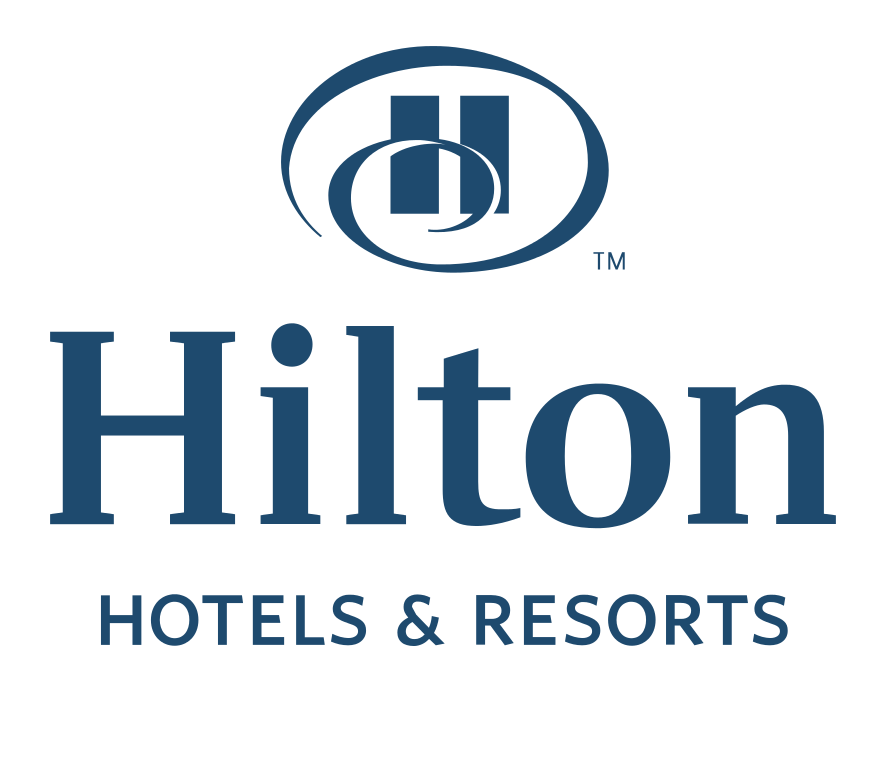
Hilton Hotels & Resorts Font
Fonts in UseHilton Hotels & Resorts is owned by Hilton Worldwide Holdings Inc. and has over 585 properties in 94 countries worldwide. The brand is known for its luxurious accommodations and world-class amenities, catering to both leisure and business travelers.
The company's logo features two different fonts: the sans serif text "Hotels & Resorts" uses Whitney SemiBold, a typeface originally created by American designer Tobias Frere-Jones for New York's Whitney Museum, while the serif text "Hilton" is likely a custom design, with Walbaum BQ Medium by Günter Gerhard Lange being the closest available match.